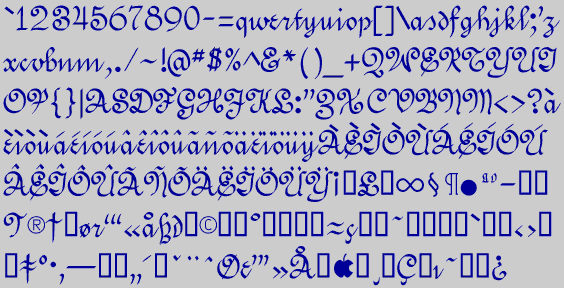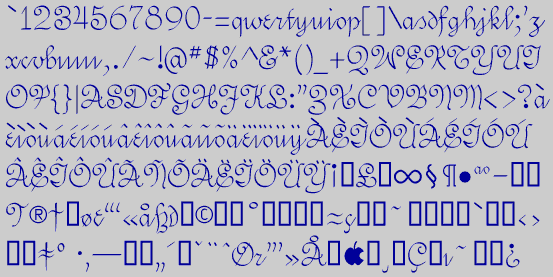
Script fonts are an area which I have found frustrating; I have been largely unhappy with my efforts. Swirlity is an exception--it is one of the few scripts I have done that I like. It took an old (16th or 17th century) calligraphic script style and combined it with the caps for LastBigFling. The result is a distinctive and decorative script. It is not the most readable typeface, but if one want readability, one avoids scripts.